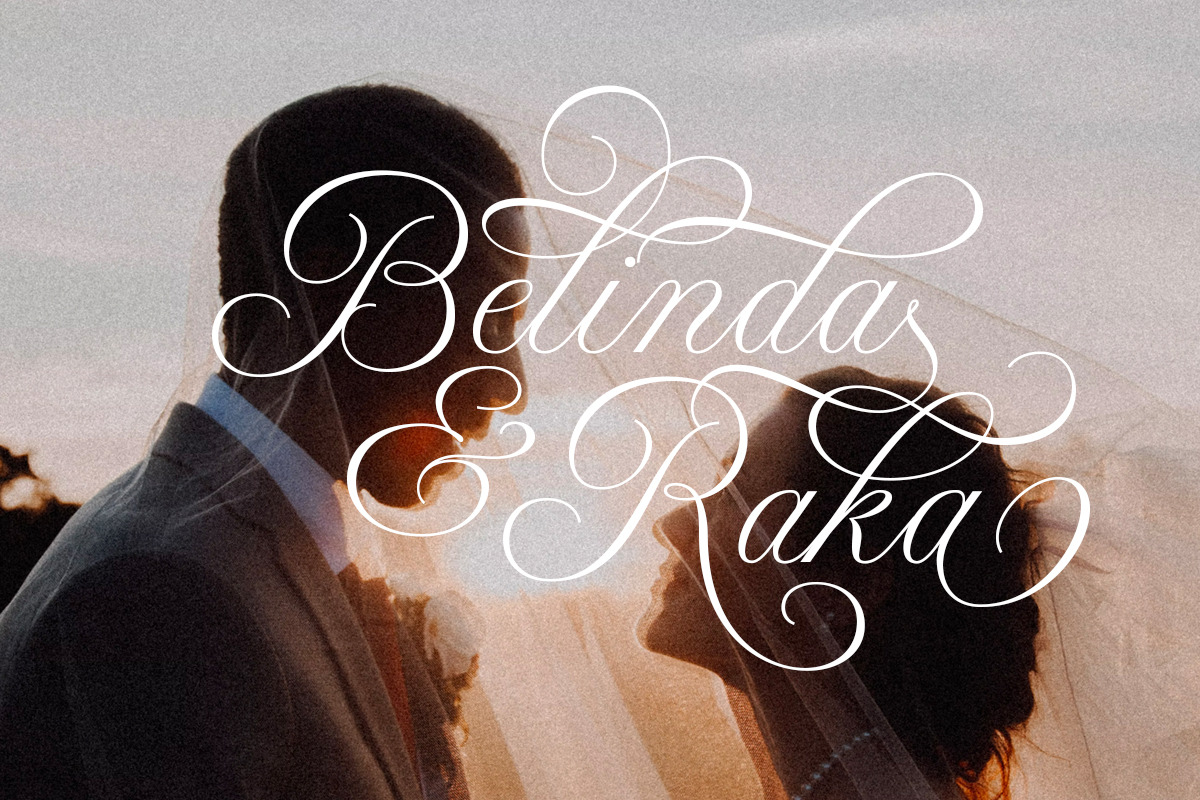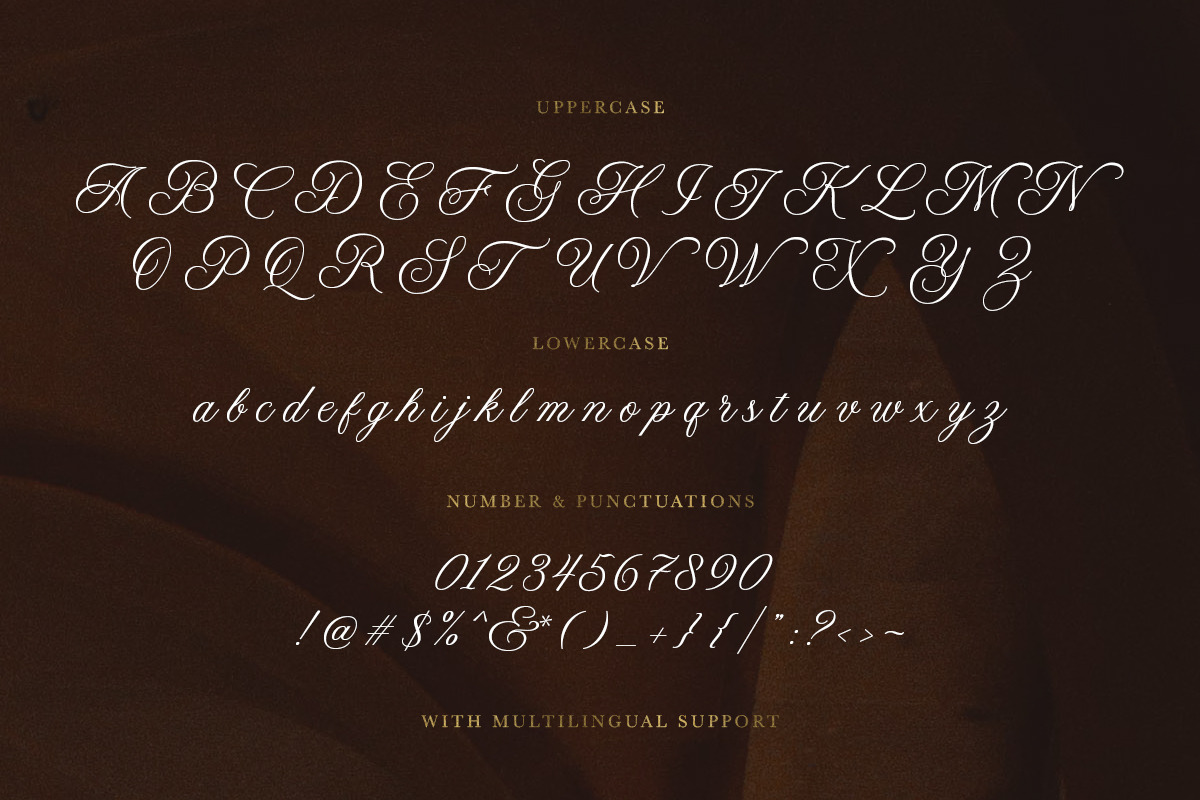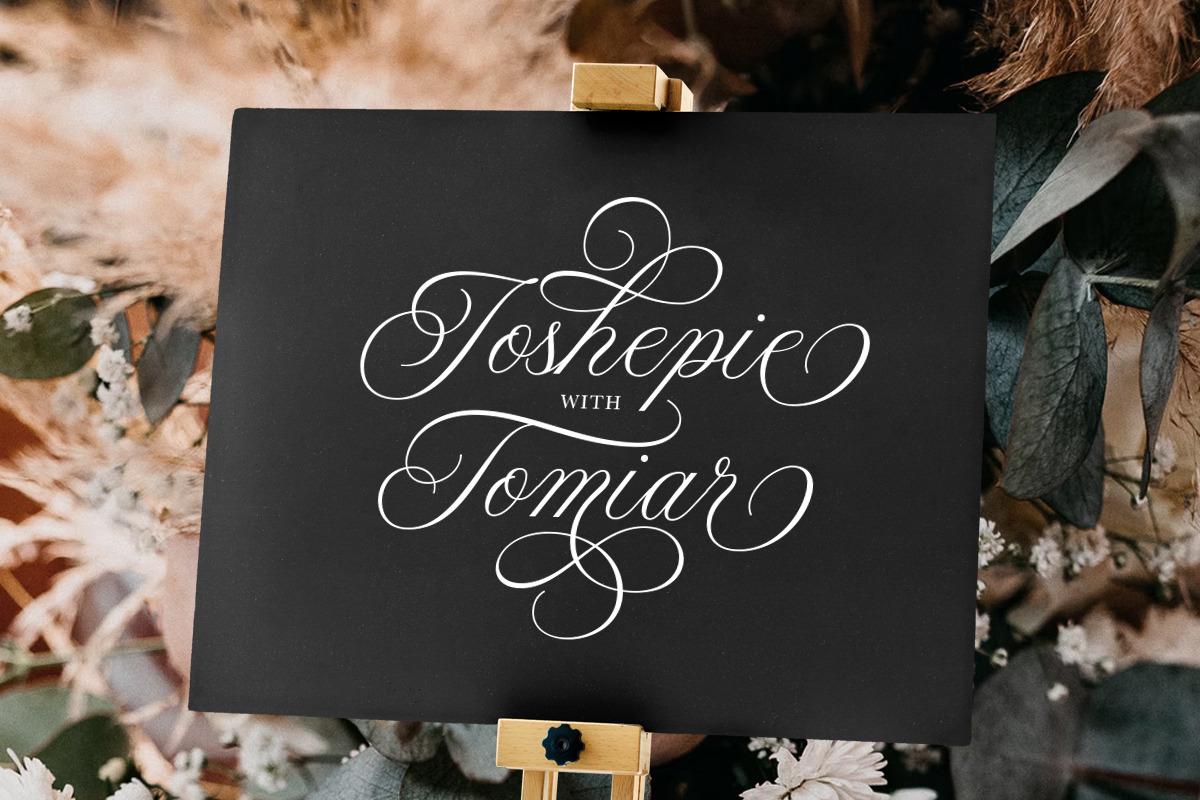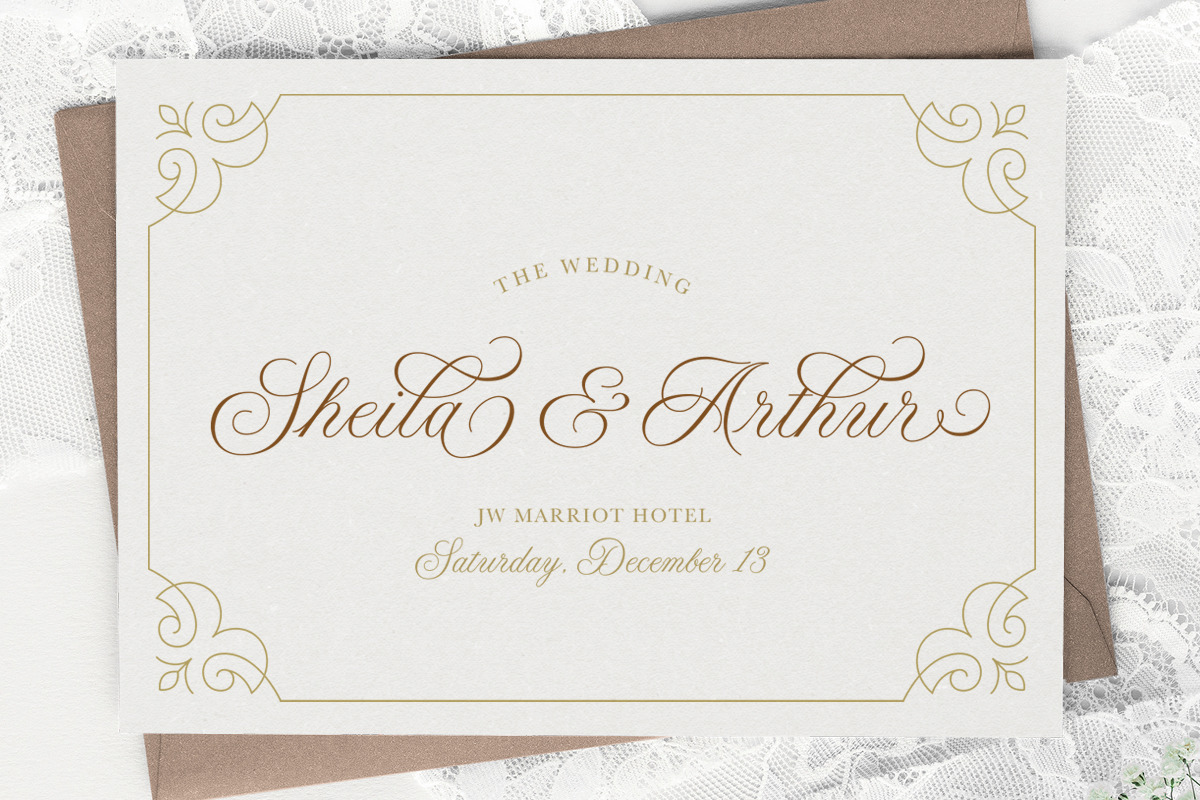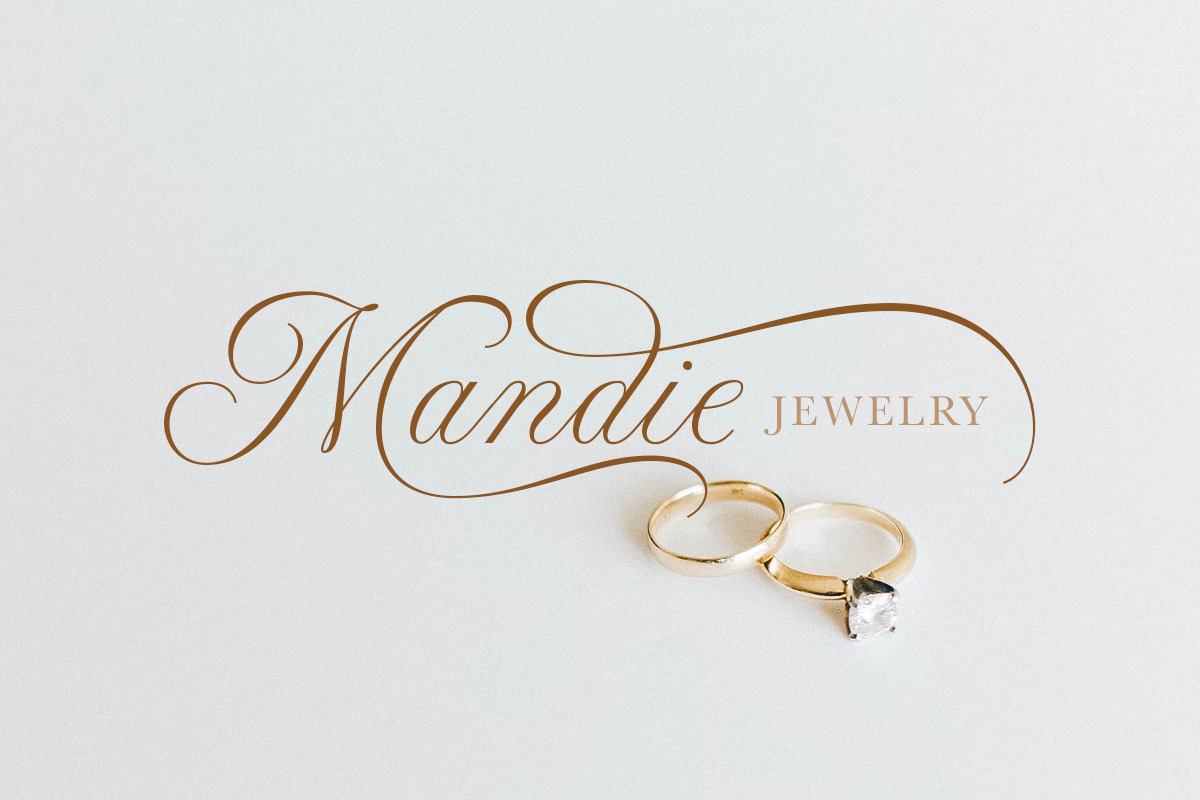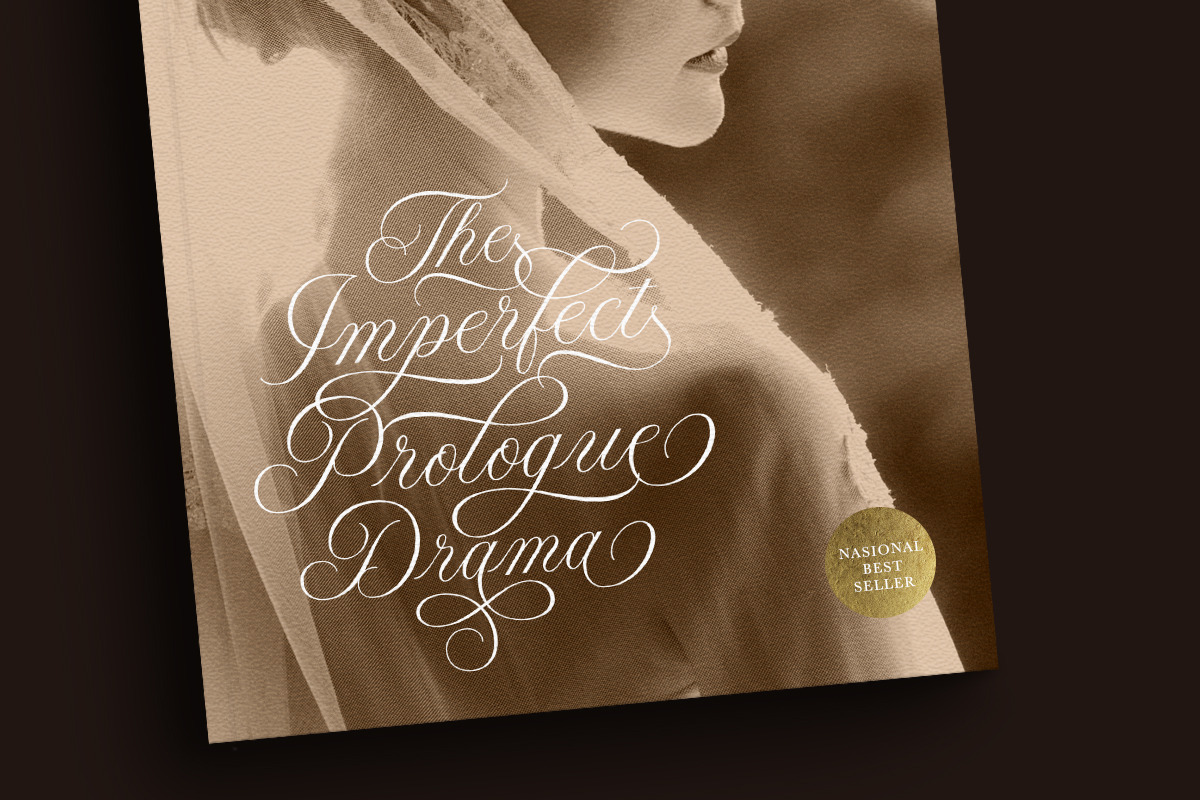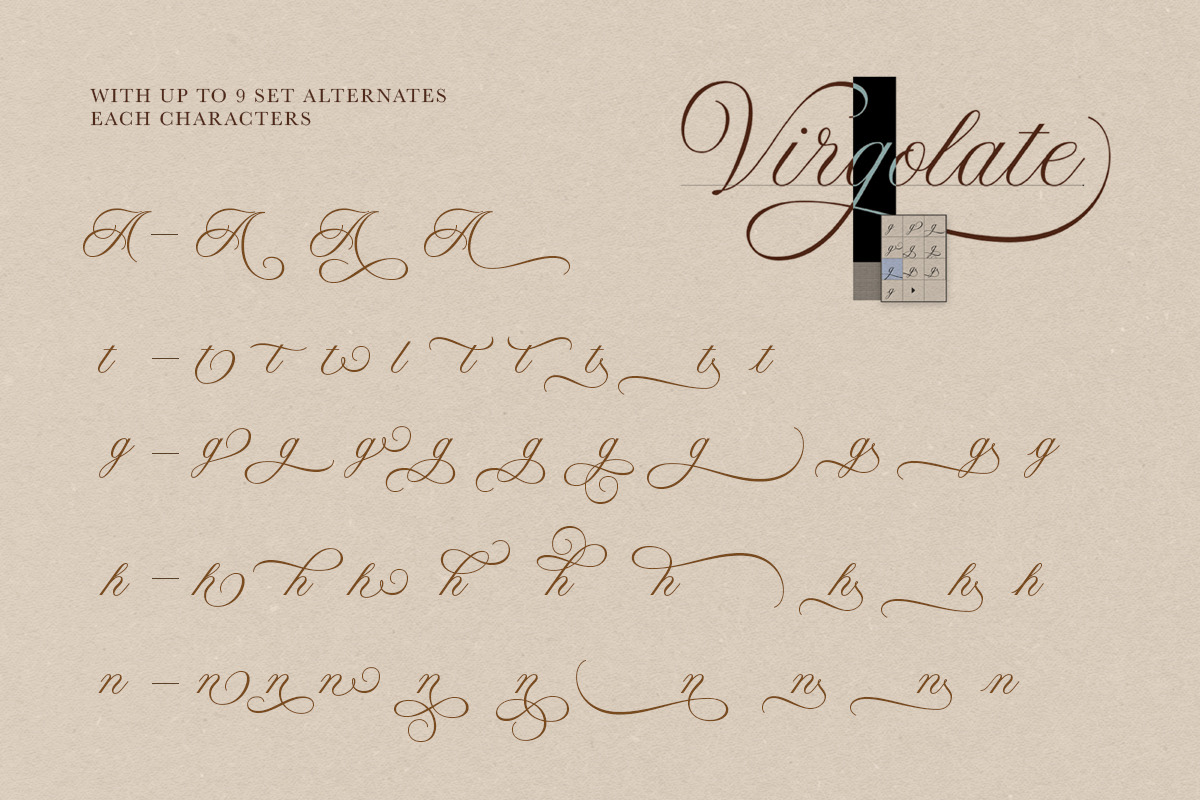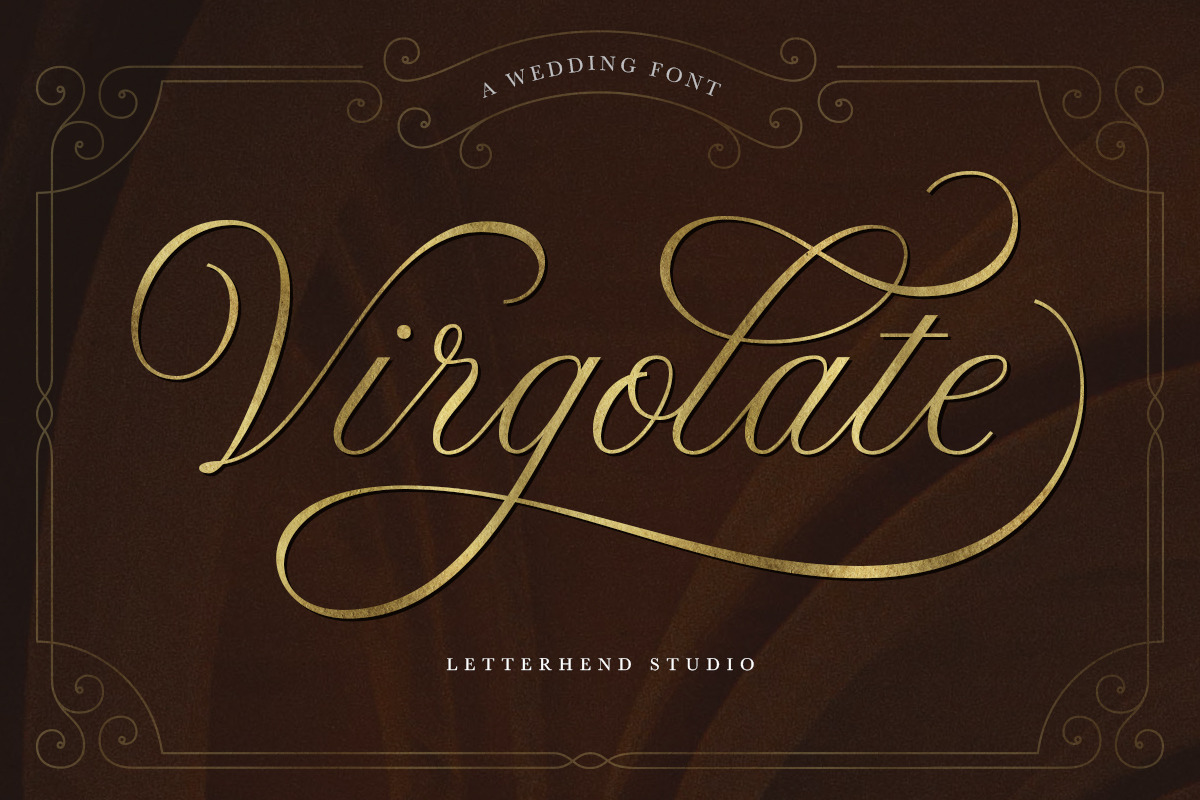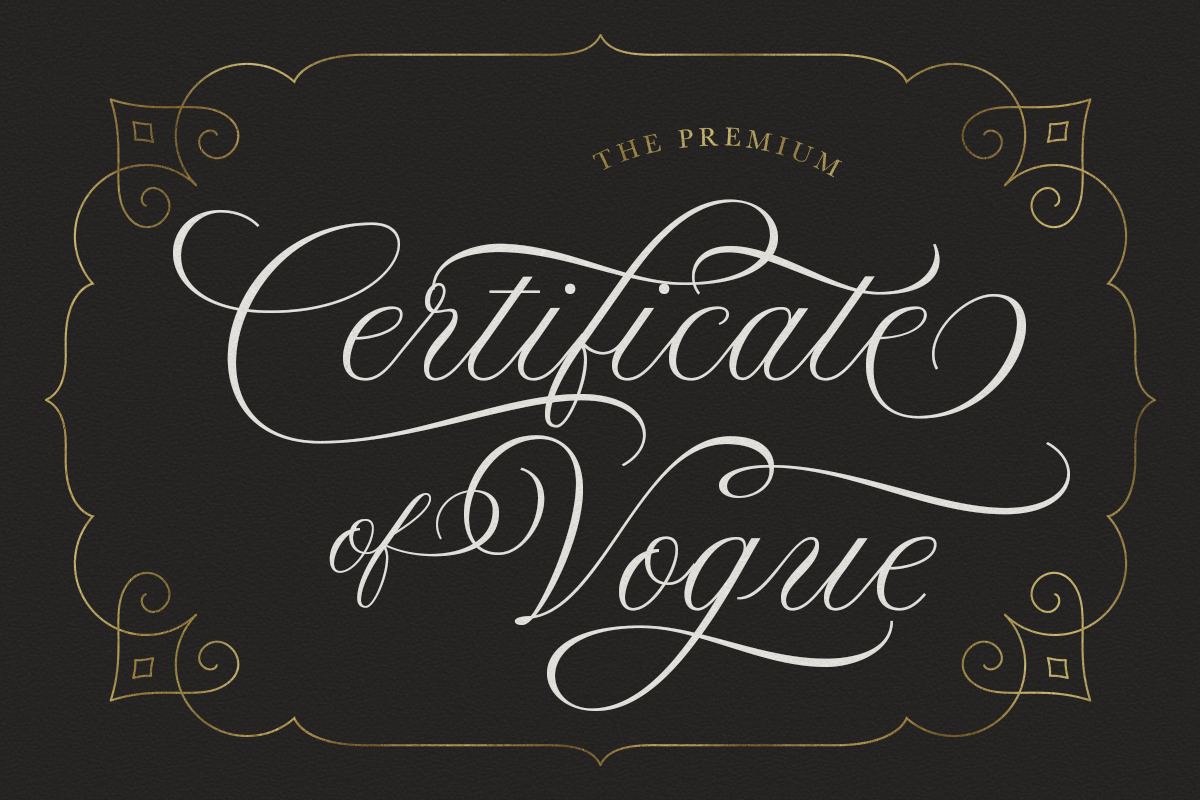
Virgolate - Wedding Font
Virgolate is a beautiful and classy script based on manual calligraphy ink on a paper. This fnt has many swashes that allows you to create beautiful lettering instantly. it has many stylistic set alternates that you can choose from. This font perfectly made to be applied especially in logo, and the other various formal forms such as invitations, labels, logos, magazines, books, greeting / wedding cards, packaging, fashion, make up, stationery, novels, labels or any type of advertising purpose.
- alternates
- swashes